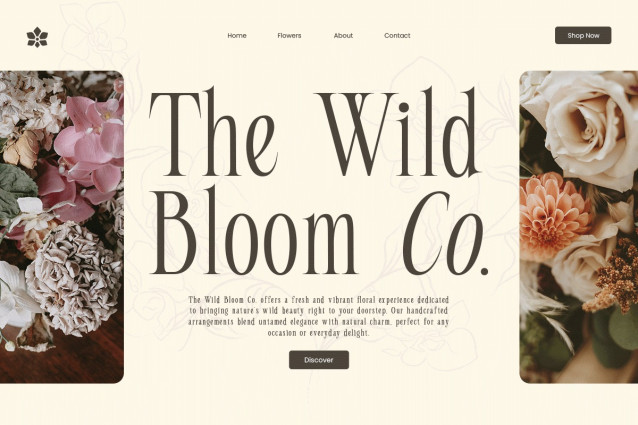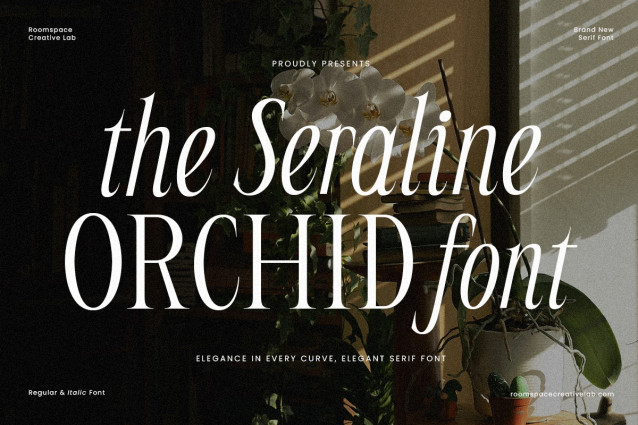
Seraline Orchid Font
Seraline Orchid Font is a serif typeface that embodies calm beauty and editorial luxury. Inspired by natural curves and soft botanical forms, this typeface adds sophistication to wedding invitations, branding identities, and fashion layouts. Perfect for those who love elegant type with a romantic edge Seraline Orchid brings quiet power and polished detail to every project.